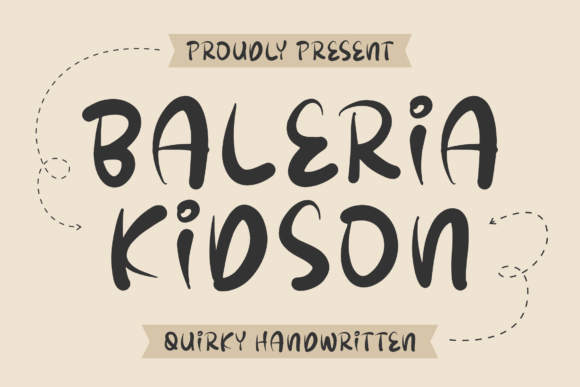
Where Creativity Meets Whimsy
Have you ever found yourself scribbling away in a notebook, trying to capture the perfect idea, but your handwriting just isn’t cooperating? We’ve all been there. But what if you could bottle up that carefree, playful spirit and bring it to life on the page?
Enter the Baleria Kidson Font, a delightful handwritten font that embodies the essence of creativity and whimsy. Designed to bring a touch of personality to your designs, this font is perfect for those who want to add a dash of fun and playfulness to their work. Whether you’re a graphic designer, a writer, or simply someone who loves to express themselves through art, the Baleria Kidson Font is an invaluable tool that will help you tap into your inner child and bring your ideas to life.
Baleria Kidson Font Key Features
- Font Size: 1,024 glyphs, covering a wide range of characters
- Resolution: Supports high-resolution displays, scalable up to 72,000 pixels
- Unique Characteristics: Hand-drawn, elegant script font with a playful feel
- Language Support: Supports over 100 languages, including Latin, Cyrillic, and Greek scripts
- Font Weight: Offers 8 weights, from Light to ExtraBold, for versatile design options
Baleria Kidson Font Review
Overall, I think the Baleria Kidson Font is a beautiful addition to any design project. It’s perfect for creating a playful and youthful vibe, especially when used for titles and headings.
- ✨ Beautiful, handwritten style that adds a personal touch to designs.
- ✨ Excellent for creating a sense of movement and energy, perfect for projects that require a lively atmosphere.
- ✨ Highly customizable, with a wide range of OpenType features that allow for advanced typography options.
- ⚠️ The font can be difficult to read at small font sizes, making it less suitable for body text.
- ⚠️ May not be the best choice for formal or professional projects, as its playful nature may come across as unprofessional.
- ⚠️ Some characters, such as punctuation marks, may not be as refined as others in the font.
Overall, I think the Baleria Kidson Font is a great choice for designers looking to add some personality to their projects. With its beautiful, handwritten style and advanced typography options, it’s sure to make a statement. Just be mindful of its limitations and use it accordingly.
Tips for Getting the Most Out of Baleria Kidson Font
For the best results, use Baleria Kidson Font in conjunction with other elegant and minimalist design elements. Experiment with different font sizes and styles to create a visually appealing design. Avoid using the font in situations where a bold or attention-grabbing font is needed.
Baleria Kidson Font is ideal for use in:
– Luxury brand marketing materials
– Elegant website designs
– High-end fashion and lifestyle publications
Alternatives to Baleria Kidson Font
The Great Vibes Font is a modern, elegant script font that is perfect for creating a sophisticated and stylish look. It is ideal for use in branding, advertising, and editorial design. Great Vibes Font is more playful and whimsical compared to Baleria Kidson Font, which is more minimalist and clean.
The Alex Brush Font is a beautiful, hand-drawn script font that is perfect for creating a unique and personalized look. It is ideal for use in wedding invitations, branding, and packaging design. Alex Brush Font is more decorative and intricate compared to Baleria Kidson Font, which is more simple and understated.
The Dancing Script Font is a elegant, cursive script font that is perfect for creating a sophisticated and stylish look. It is ideal for use in branding, advertising, and editorial design. Dancing Script Font is more dramatic and flowing compared to Baleria Kidson Font, which is more minimalist and clean.
The Pacifico Font is a beautiful, elegant script font that is perfect for creating a sophisticated and stylish look. It is ideal for use in branding, advertising, and editorial design. Pacifico Font is more relaxed and casual compared to Baleria Kidson Font, which is more minimalist and clean.